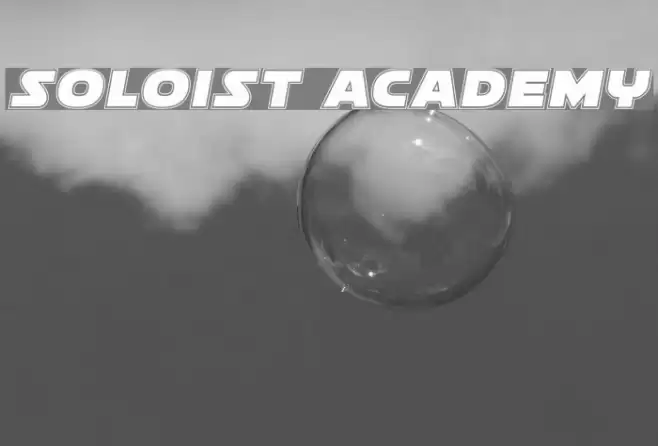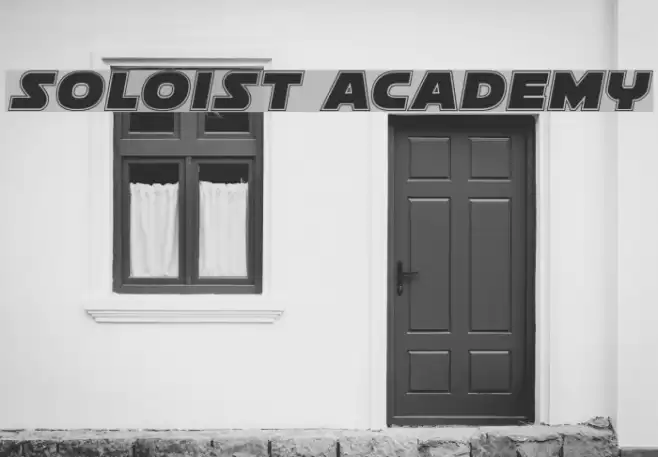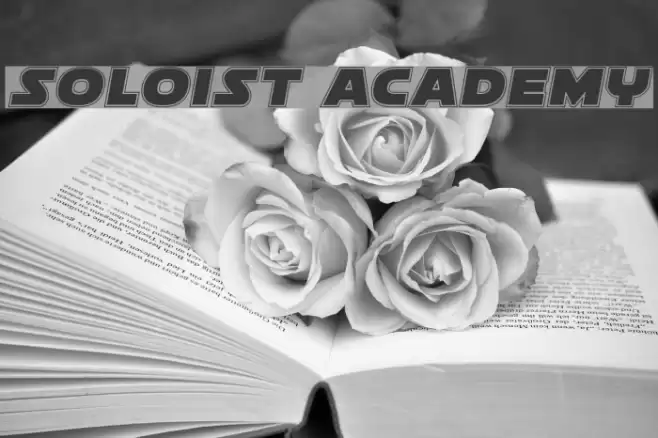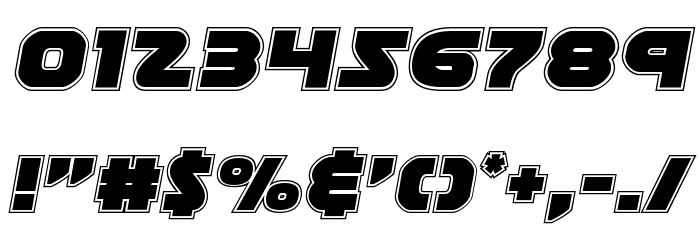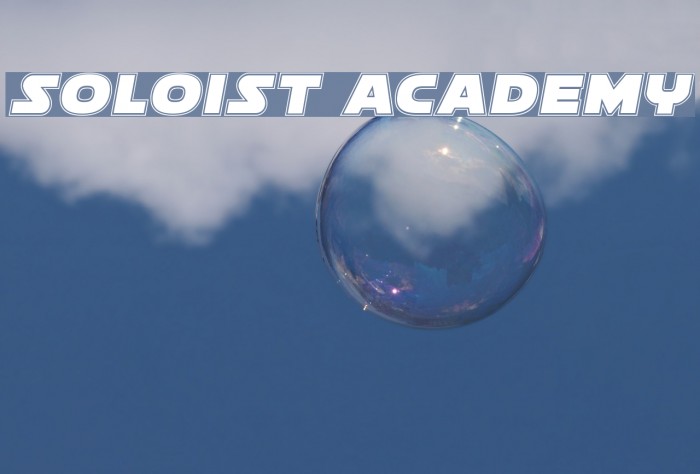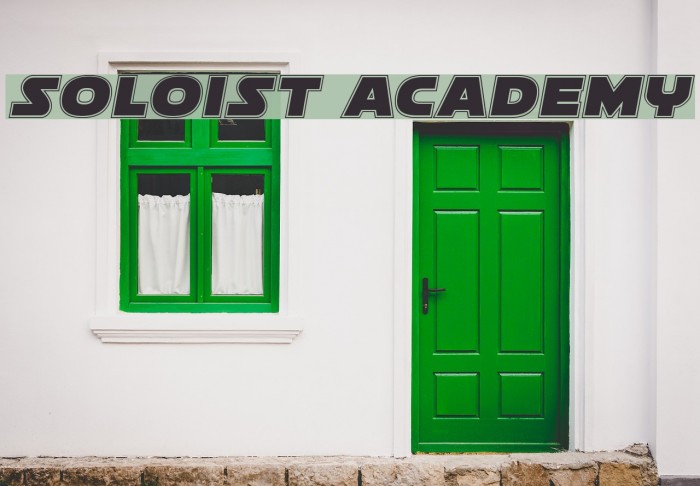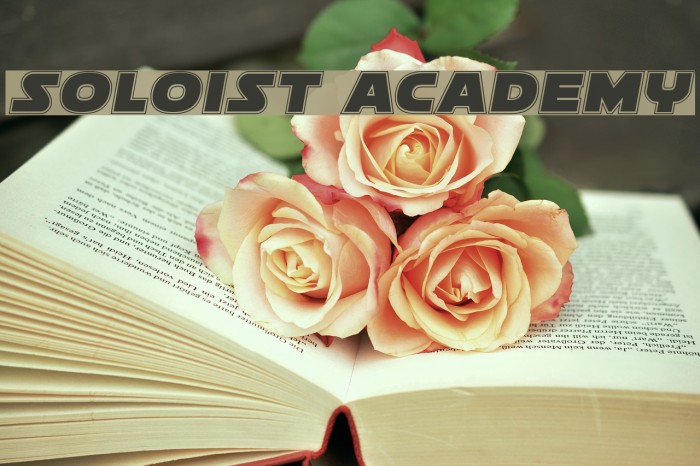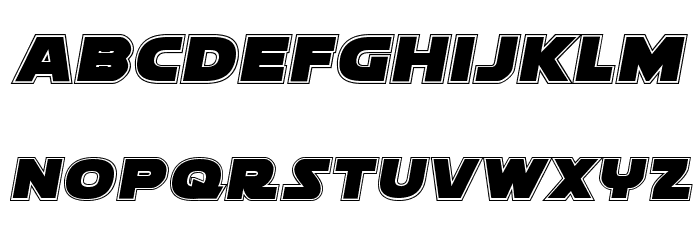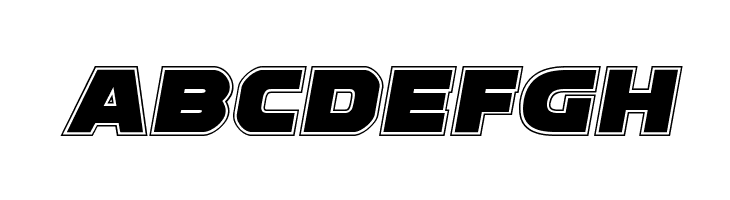
Soloist Academy Font
Soloist Academy Description
This font features a bold and dynamic style with a strong presence. The characters are designed with a thick, solid outline that gives them a three-dimensional effect, enhancing their visibility and impact. The uppercase letters are particularly striking, with angular edges and a slightly condensed form that adds to their assertiveness. The numbers and special characters maintain the same boldness, ensuring consistency across all glyphs. This font is ideal for projects that require a strong, eye-catching typeface that commands attention.
A bold, dynamic font with a strong, three-dimensional effect from Uncategorized fonts.
- Proposed Projects: Ideal for sports branding, posters, headlines, and any design needing a bold statement.